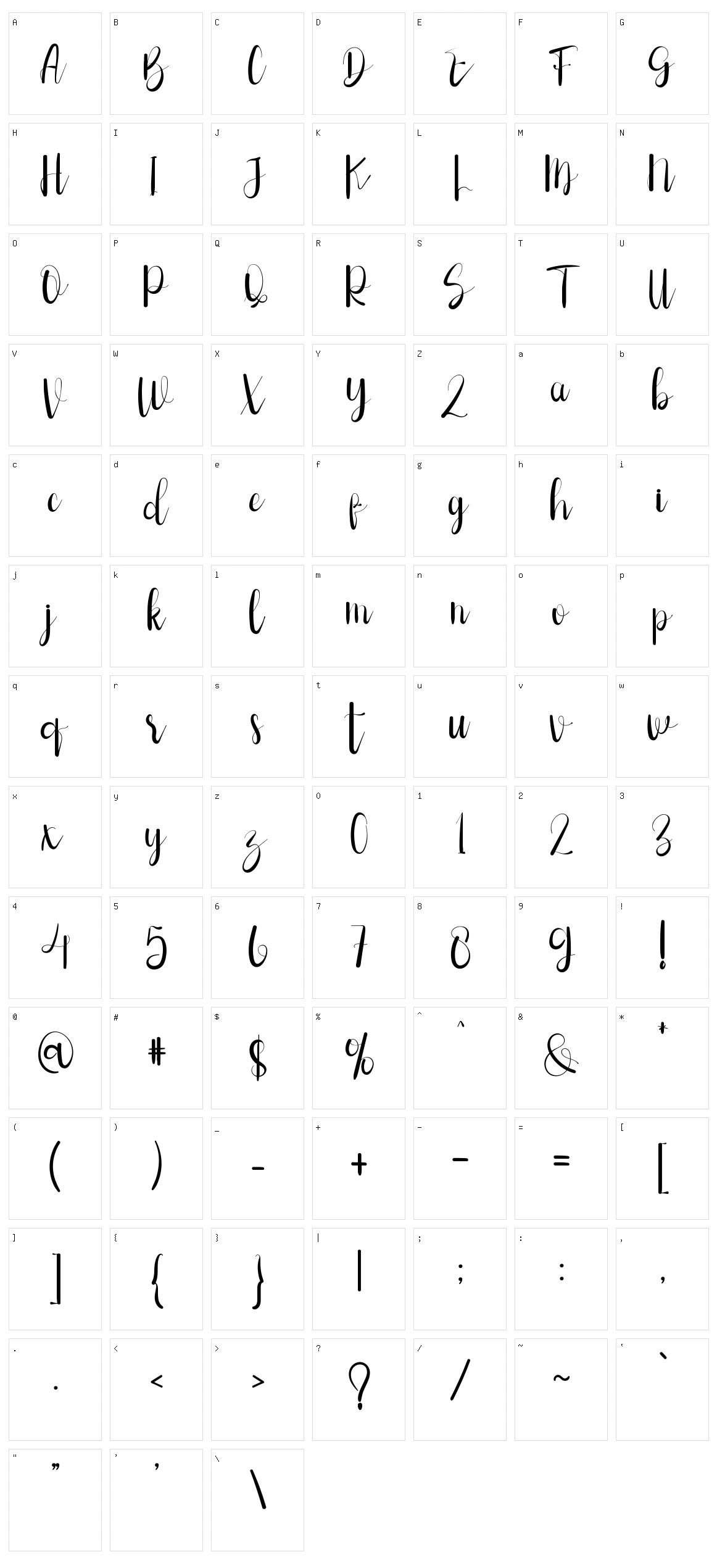
The free font Hello Picha is carefully designed by Inermedia Studio, showcasing a thoughtful balance of creativity and usability and falls under the Script font style. When you download the ZIP file, it contains only 36.96 KB of font files, making it lightweight and quick to download. Please review the license details below to understand permitted usage and distribution rights. If license information is not available, we recommend using this font for personal projects only or contacting the author directly for commercial usage permissions.